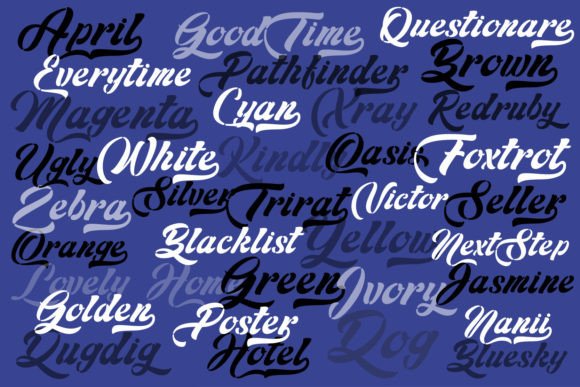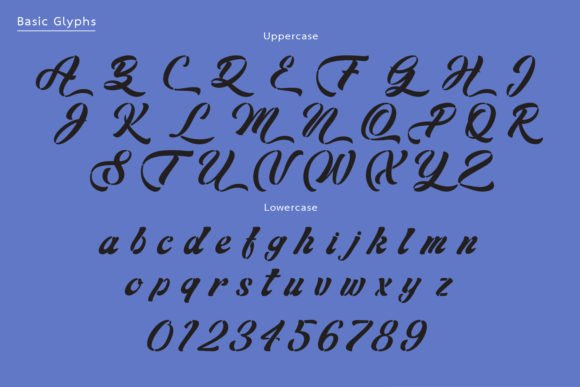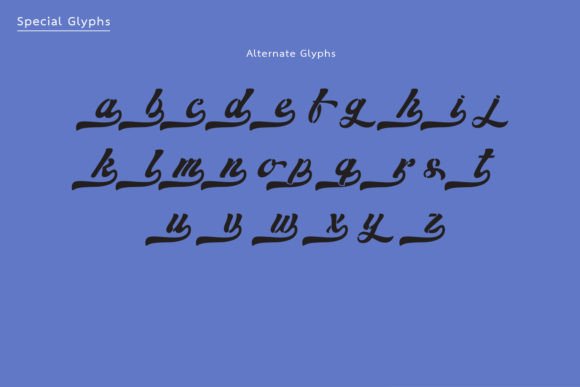
Bella Stella Font: Elevate Your Designs with Retro Flair
Are you looking for a font that adds a touch of elegance and whimsy to your designs? Look no further than Bella Stella, a beautifully crafted font that mimics the look of letters written with a flat brush, inspired by retro ribbon-style poster typography. With its unique stencil-style design and sweeping tails, Bella Stella is sure to make your designs stand out.
The Inspiration Behind Bella Stella
Bella Stella is inspired by the classic ribbon-style poster typography of the past, with a modern twist. The font’s creator aimed to capture the essence of retro-style typography, with its elegant, sweeping tails and stencil-style design. The result is a font that exudes a sense of fluidity and harmony, perfect for adding a touch of sophistication to your designs.
Key Features of Bella Stella
So, what makes Bella Stella so special? Here are some of its key features:
- Elegant, sweeping tails: Each uppercase letter features elegant, sweeping tails that create a sense of fluidity and harmony with the rest of the text.
- Stencil-style design: The font’s unique characteristic is its stencil-style design, where the letters are separated, giving it a distinct and striking appearance.
- Slight slant: The letters convey a sense of motion and rhythm, adding vibrancy to any design.
- Special alternative characters: All lowercase letters come with special alternative characters (PUA encoded) featuring retro-style sweeping tails, perfect for decorating the ends of sentences with flair.
Bella Stella is easy to read and visually captivating, making it ideal for various advertising and promotional materials, such as:
- Logos and branding: Add a touch of elegance and sophistication to your logo and branding materials.
- Posters and flyers: Create eye-catching posters and flyers that grab attention.
- Social media graphics: Elevate your social media graphics with a font that’s sure to stand out.
- Packaging design: Add a touch of whimsy and elegance to your packaging design.
Why Designers and Crafters Love Bella Stella
Designers and crafters love Bella Stella for its unique and versatile design. Here are some reasons why:
- Unique design: Bella Stella’s stencil-style design and sweeping tails make it a standout font that’s sure to grab attention.
- Easy to read: Despite its elegant design, Bella Stella is easy to read, making it perfect for body text and headlines.
- Versatile: Bella Stella can be used for a wide range of design applications, from logos and branding to posters and social media graphics.
Tips for Using Bella Stella in Your Designs
Here are some tips for using Bella Stella in your designs:
- Experiment with different colors: Bella Stella looks great in a variety of colors, so don’t be afraid to experiment and find the perfect hue for your design.
- Use it as a headline font: Bella Stella’s elegant design makes it perfect for headlines and titles.
- Pair it with a simple font: Pair Bella Stella with a simple font for body text to create a striking contrast.
Bella Stella is a beautifully crafted font that’s sure to elevate your designs with its retro flair. With its unique stencil-style design, elegant sweeping tails, and special alternative characters, Bella Stella is the perfect font for designers and crafters looking to add a touch of elegance and whimsy to their designs. So why wait? Try Bella Stella today and see the difference it can make in your designs!